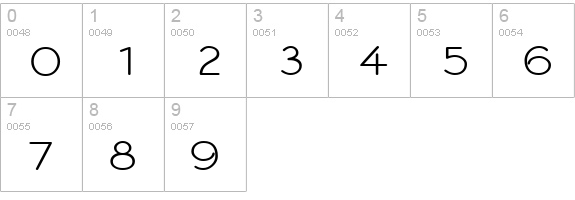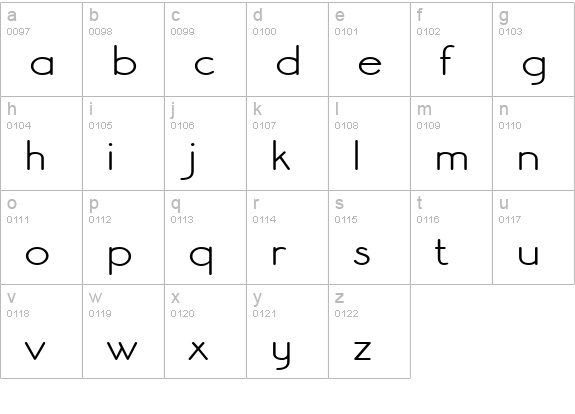
Register Sans BTN Wide Font Details
Register Sans BTN Wide is a distinctive, extended-width variant in the Register typeface family \xE2\x80\x94 well suited to design and typography projects.
Introducing Register Sans BTN Wide font - a modern and versatile typeface that exudes professionalism and sophistication. With its clean lines and wide spacing, this font is perfect for a wide range of design projects, from logos and branding materials to headlines and editorial layouts. Register Sans BTN Wide font offers a unique blend of functionality and style, making it suitable for both digital and print applications. Its wide letterforms provide excellent legibility, ensuring that your message will be easily understood by readers of all ages. One of the standout features of Register Sans BTN Wide font is that it is freely available to download at FontsMarket.com. This means that you can instantly enhance your design projects without having to worry about any additional costs. Whether you're a professional designer or a hobbyist, this font is an invaluable resource that will truly elevate your work. With its extensive character set and multiple weights, Register Sans BTN Wide font allows for endless possibilities in terms of creative expression. Whether you're looking to create a bold and impactful design or a subtle and refined one, this font has got you covered. So why wait? Download Register Sans BTN Wide font now from FontsMarket.com and unlock a world of design possibilities. With its sleek aesthetics and user-friendly nature, this font will surely become a staple in your typography toolkit. Don't miss out on the opportunity to enhance your designs with this incredible font – get it today and elevate your creative projects to new heights.